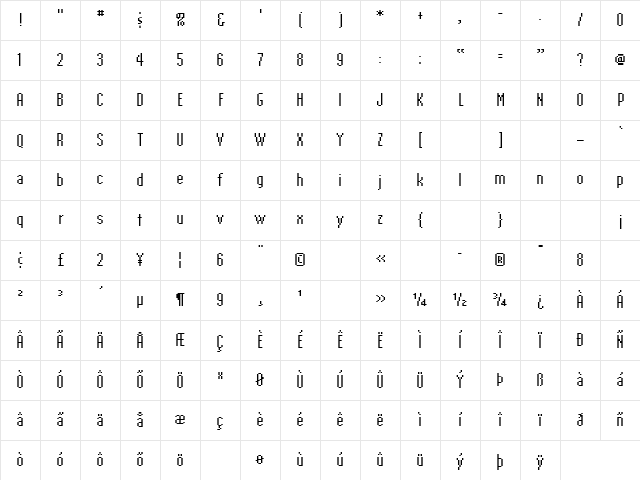
EmperorTen Regular Free Font
EmperorTen Regular
EmperorTen Family
Design Context for EmperorTen
EmperorTen is a composed and adaptable typeface that performs quietly and consistently across a wide range of design contexts.